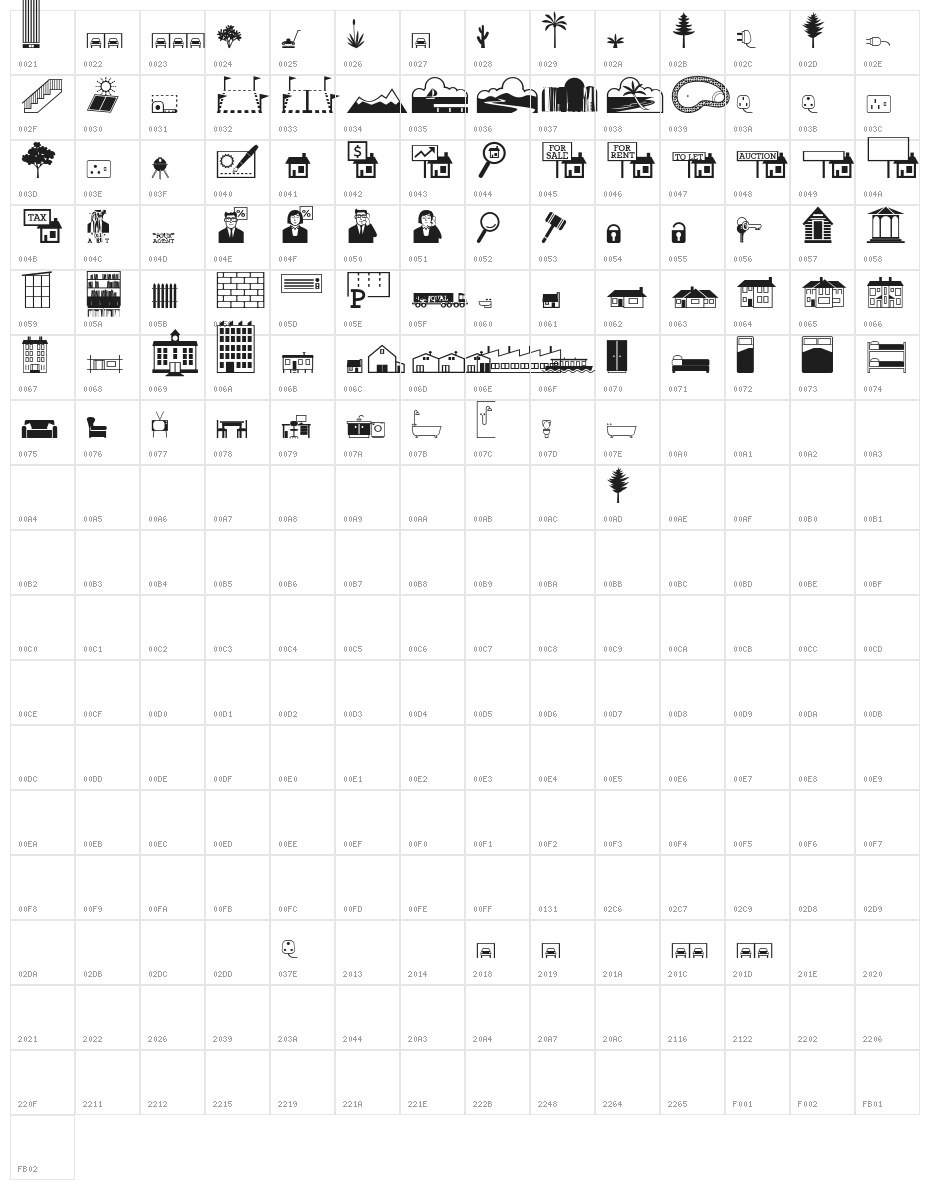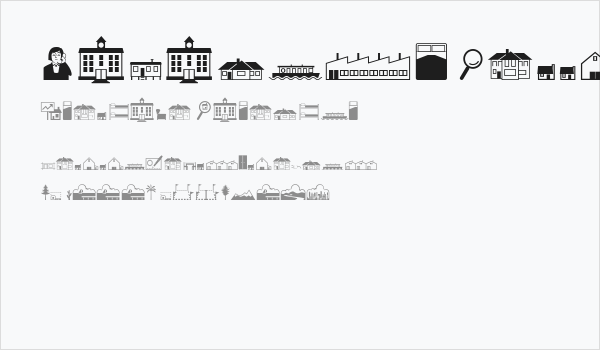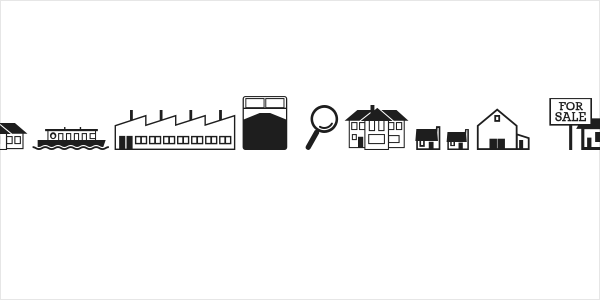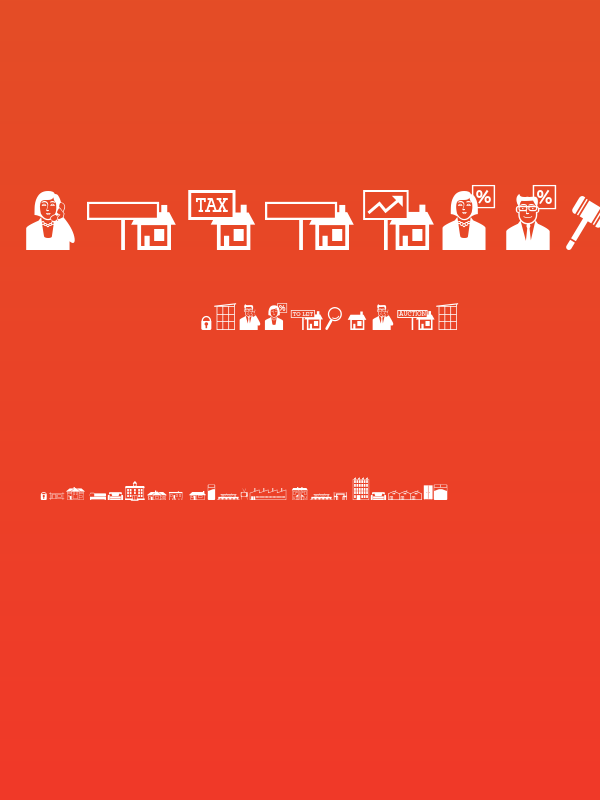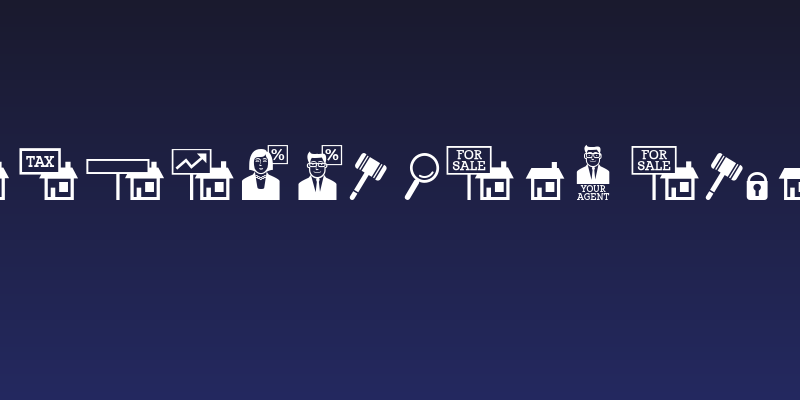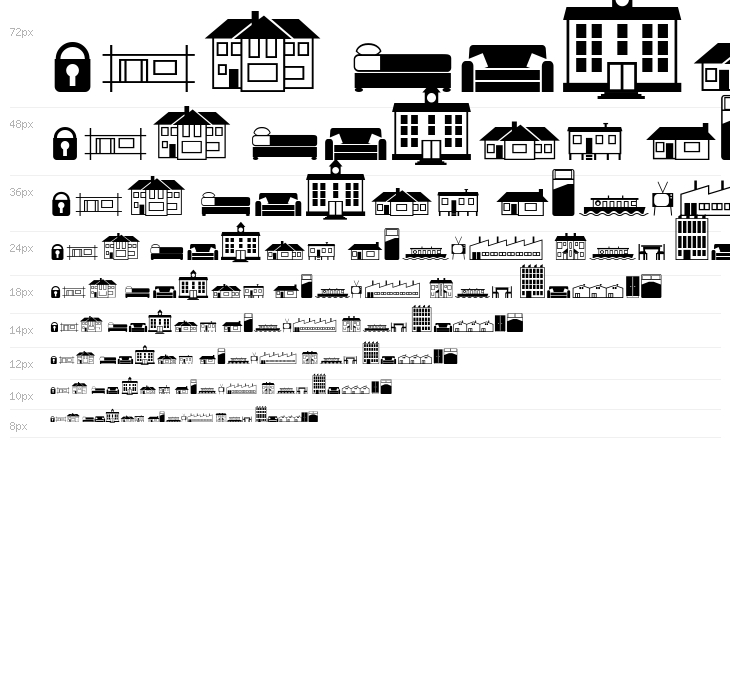
Qikicons Real Estate Font
Qikicons Real Estate Description
A comprehensive set of real estate-themed pictograms featuring houses, buildings, agents, keys, furniture, landscapes, and various property-related icons. The icons are bold, solid, and highly legible, designed in a modern, minimalistic style with consistent line thickness and clear silhouettes.
| Overall Style | Modern, Minimalistic, Decorative |
| Use Case | Icons for digital and print real estate materials |
| Proposed Projects | Real estate websites, property brochures, mobile apps, signage, infographics, presentations. |